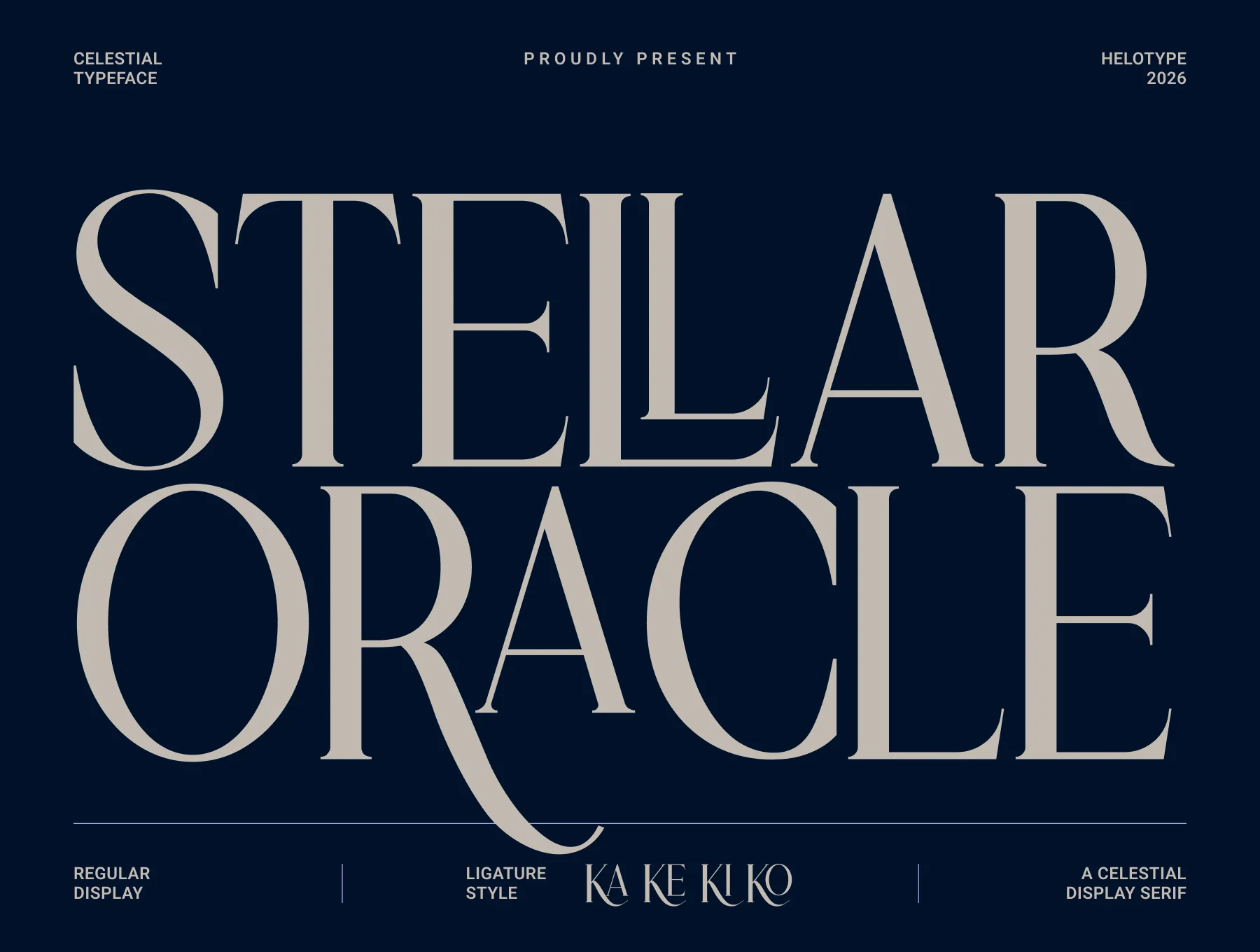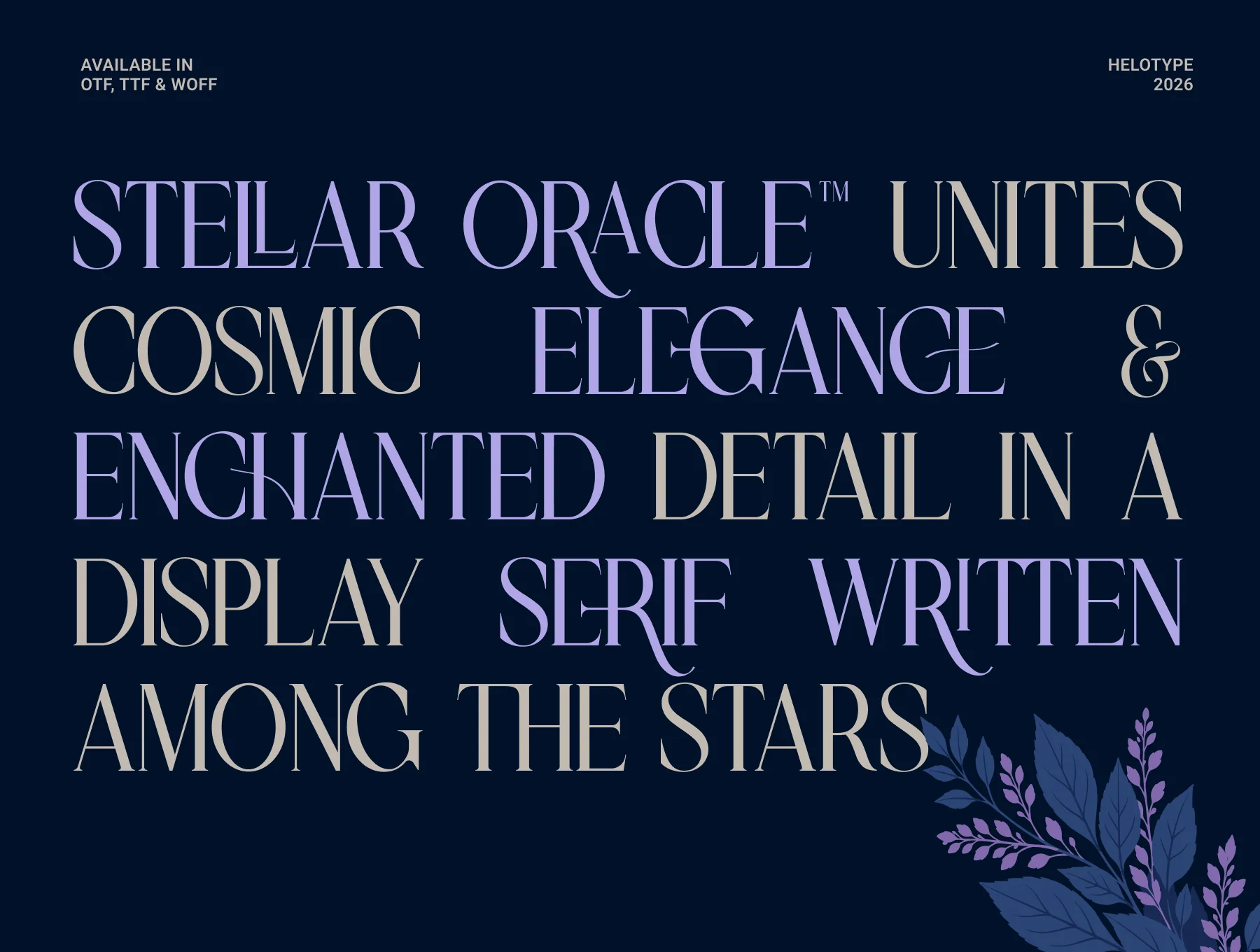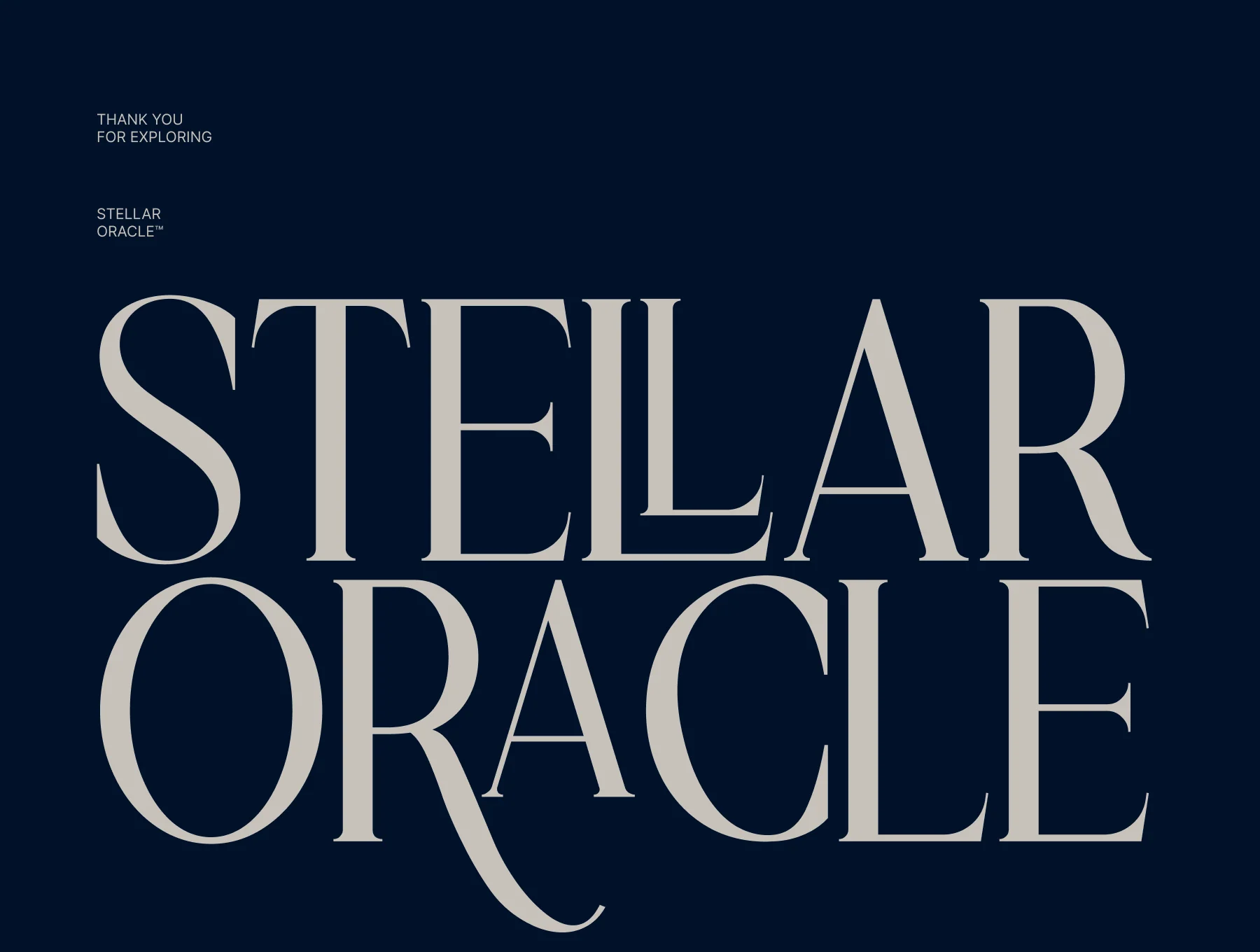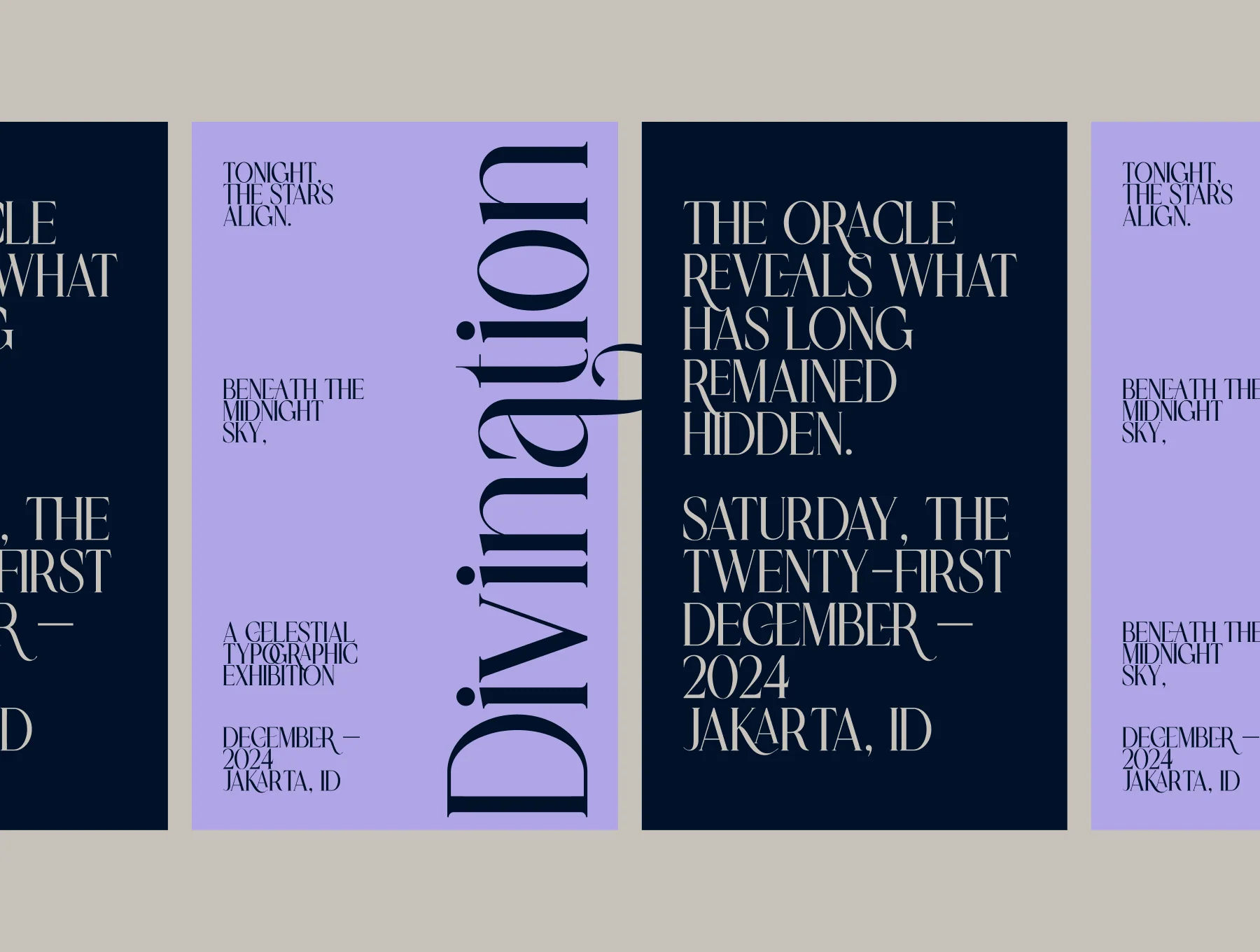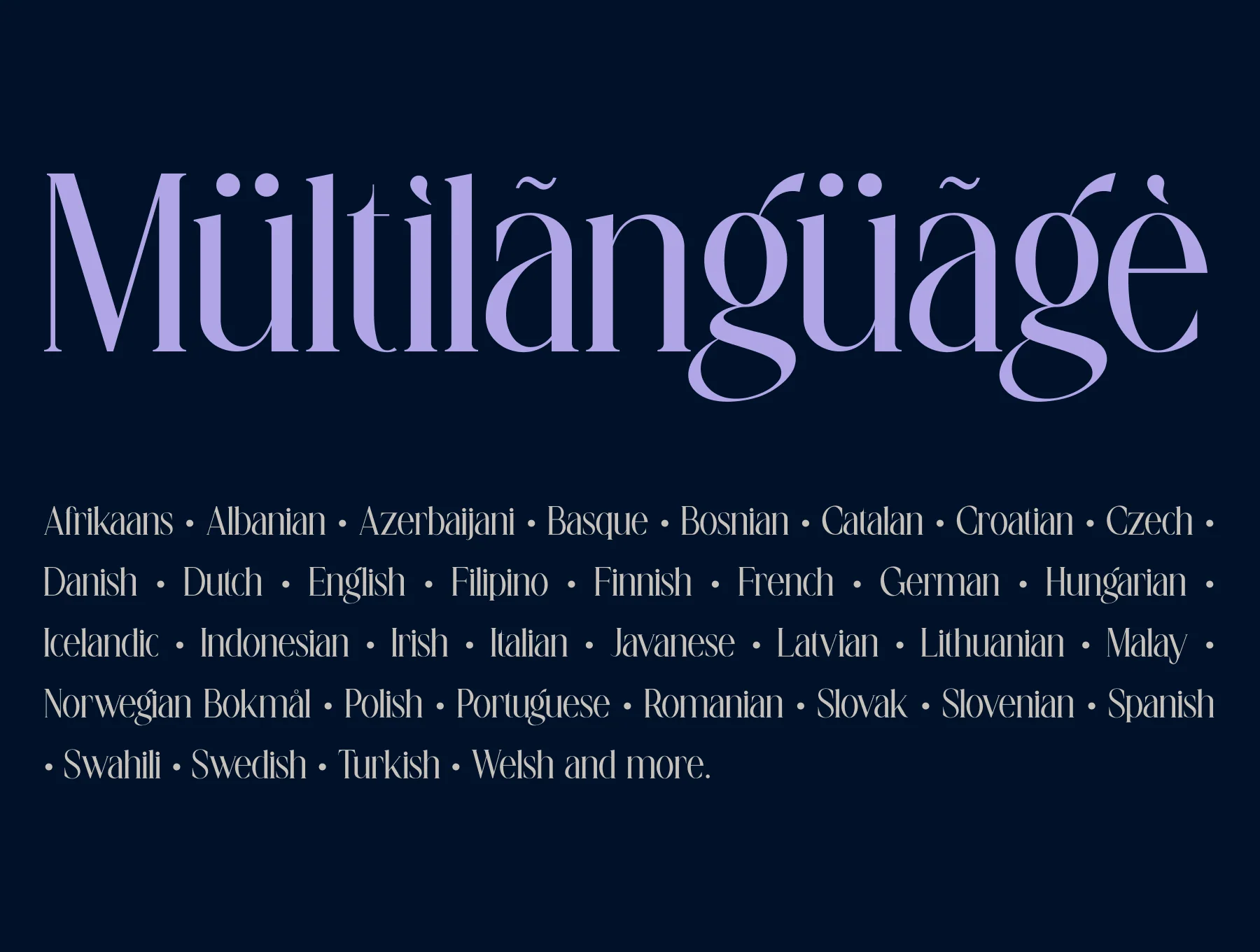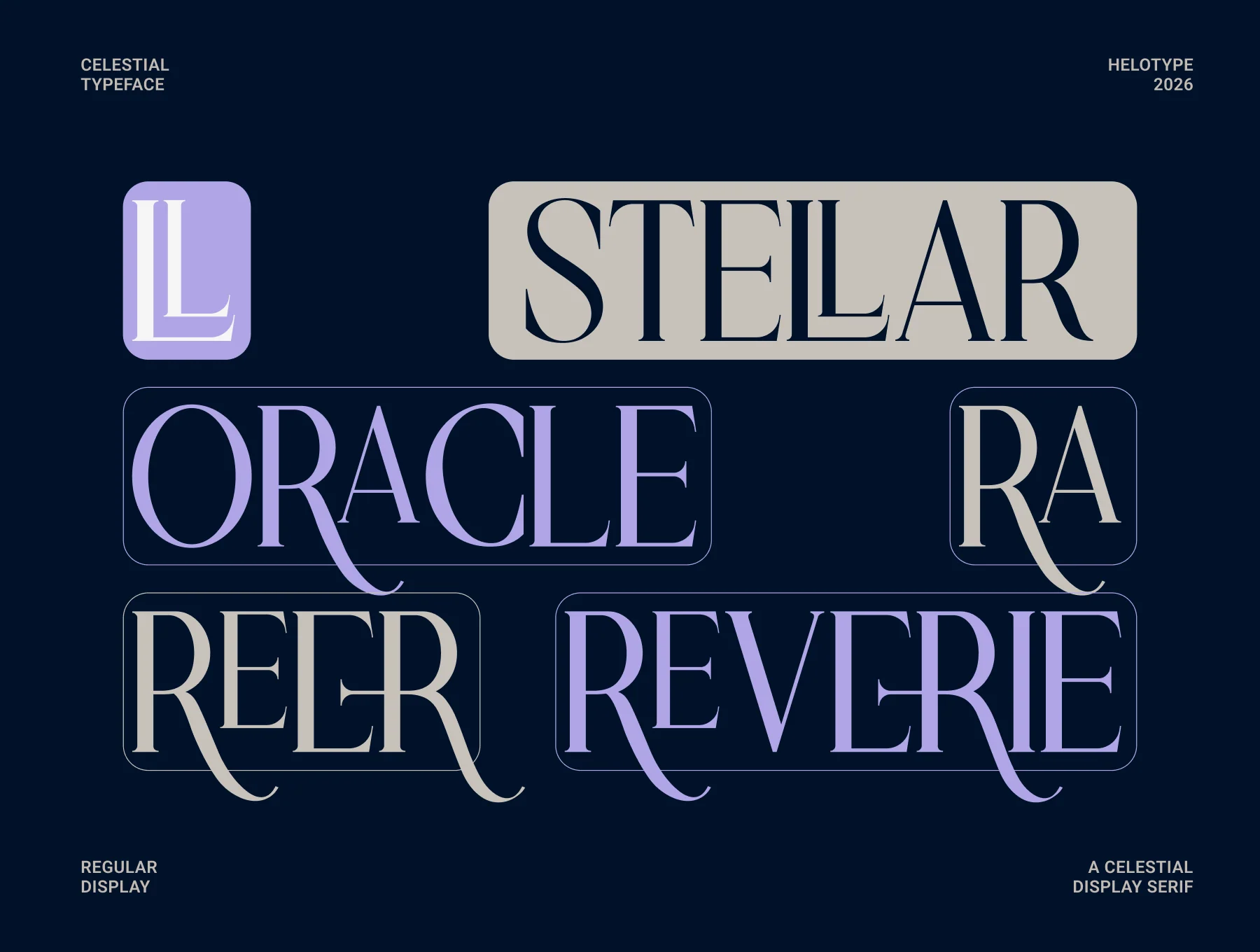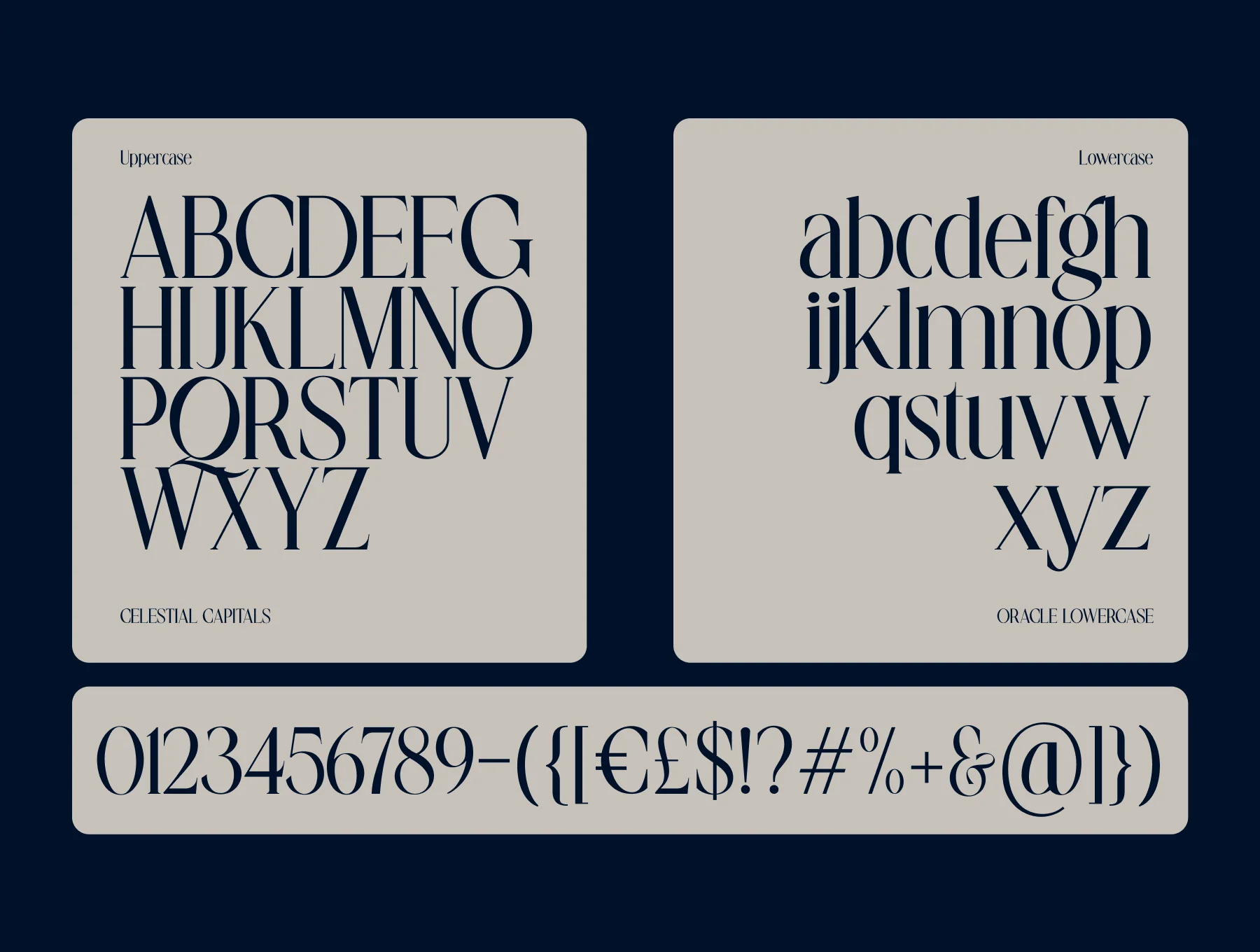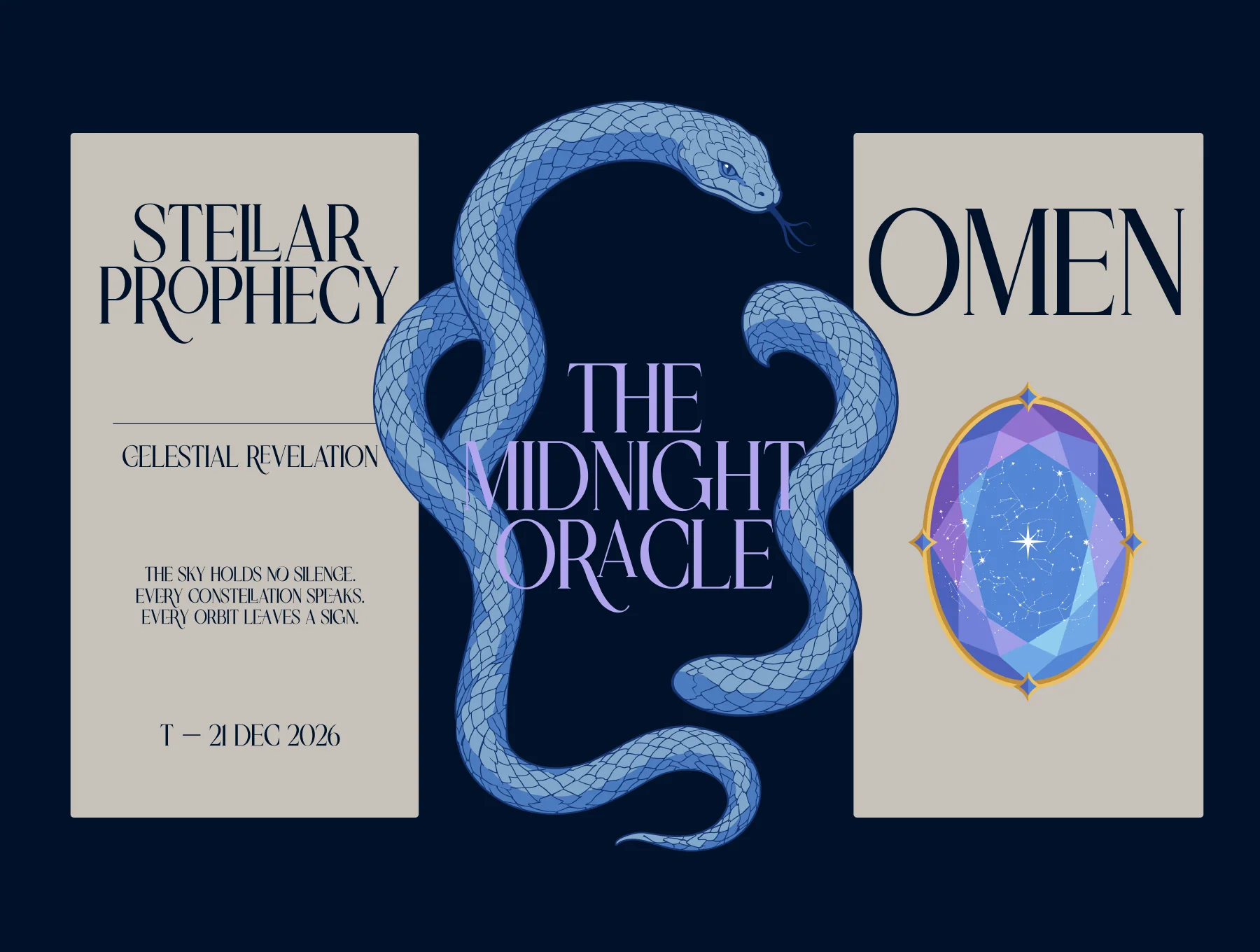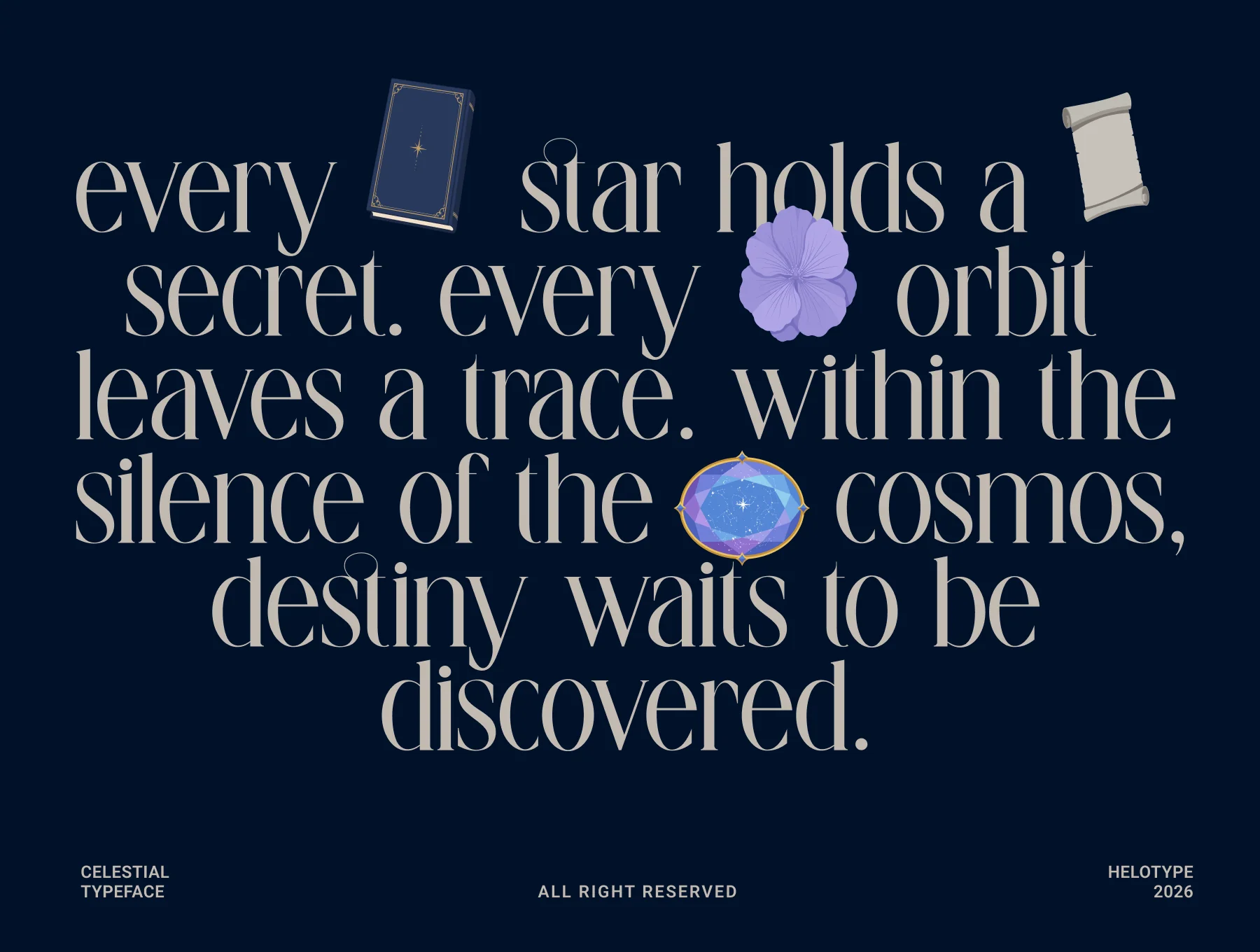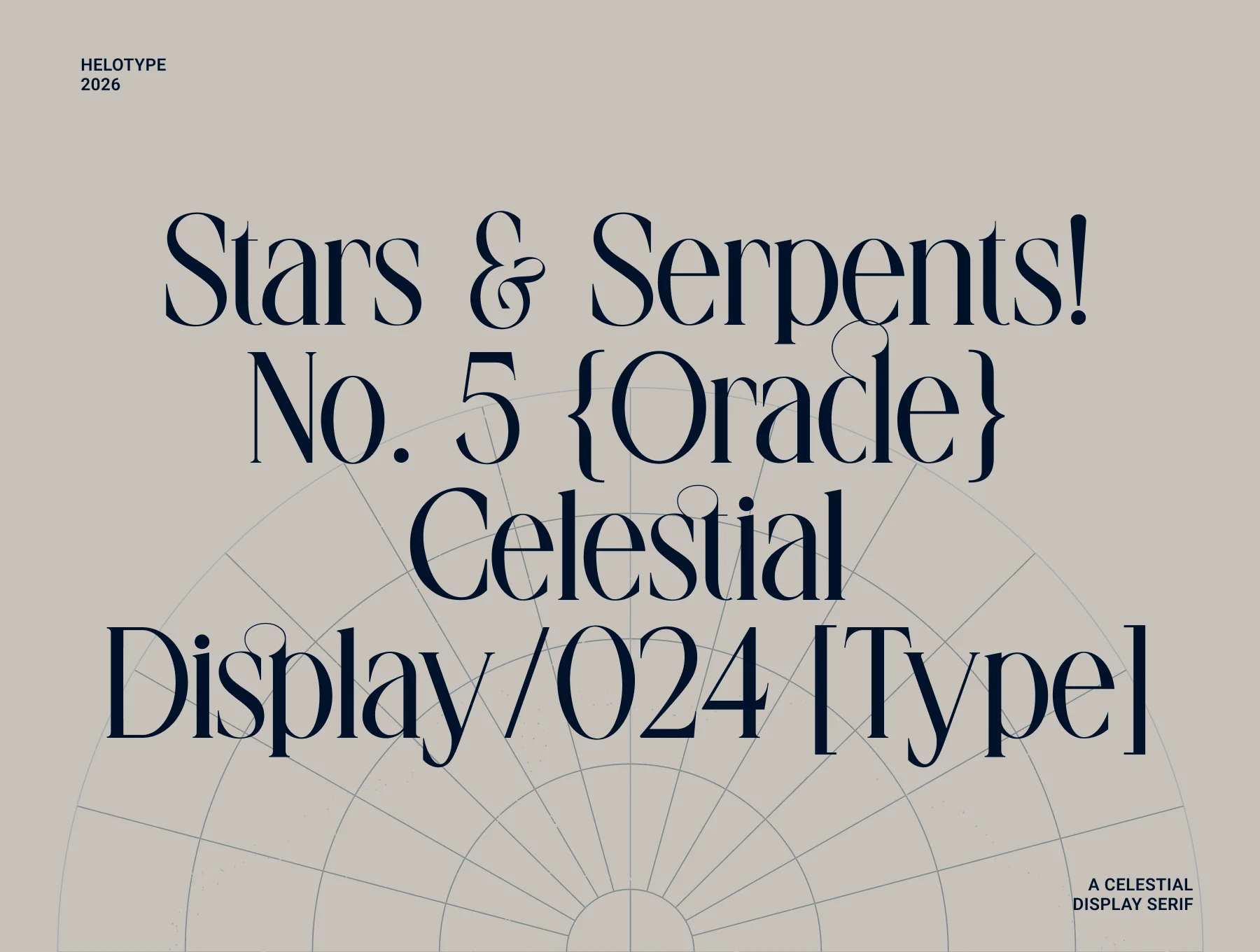
Stellar Oracle — Celestial Display Serif Font
Elegant mystical celestial serif font for logos and brand design
Capital and small letterforms
Ligatures plus alternate glyph options
Stellar Oracle is a dramatic celestial serif with sharp contrast, blending astral refinement and spellbound detail. Made for mystical, upscale visuals, it suits branding, editorials, packaging, covers, fashion, tarot, cosmetics, and bold headlines. Includes upper/lowercase, numerals, punctuation, and broad multilingual support.